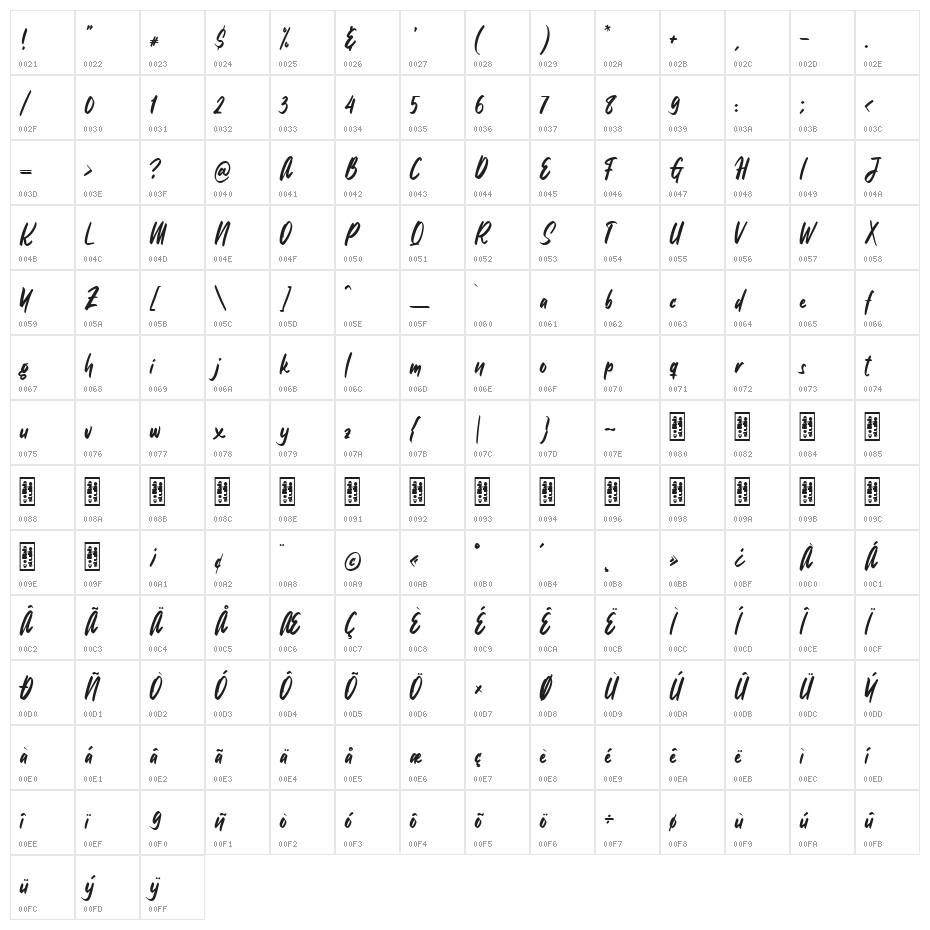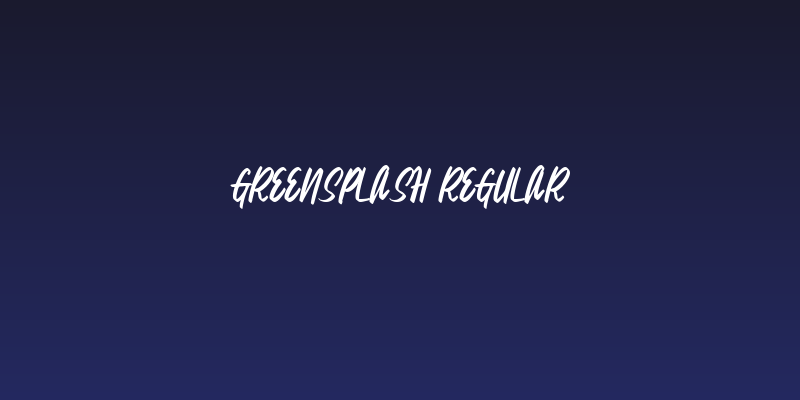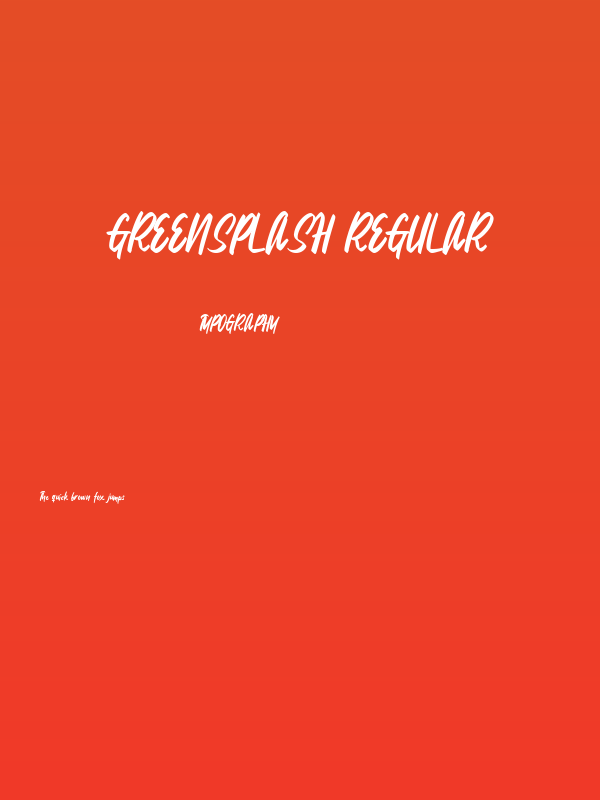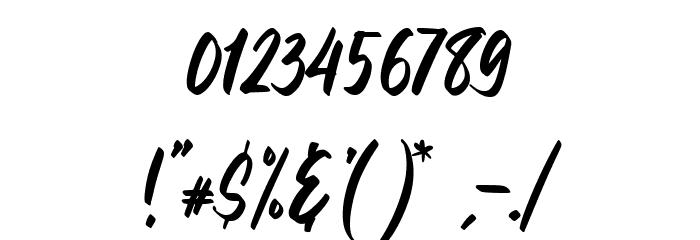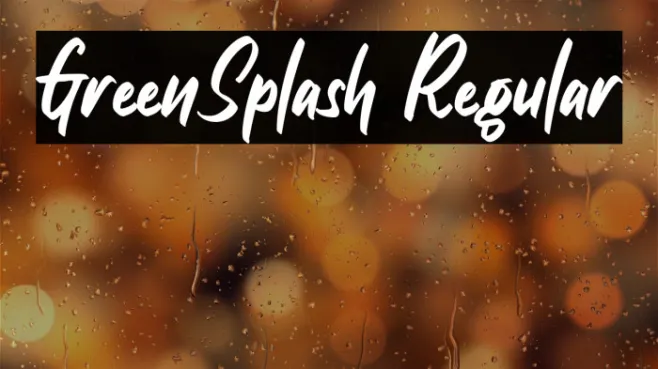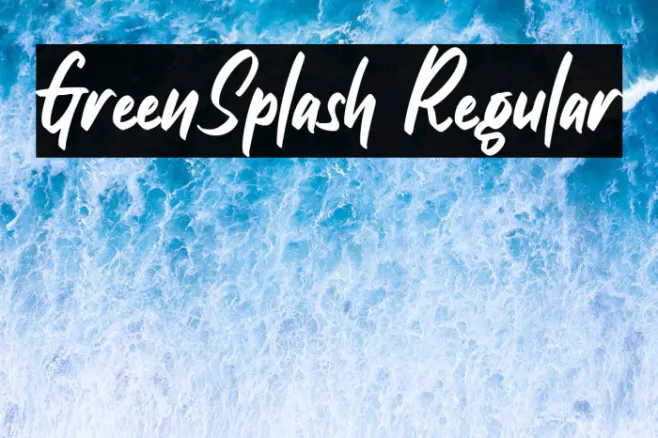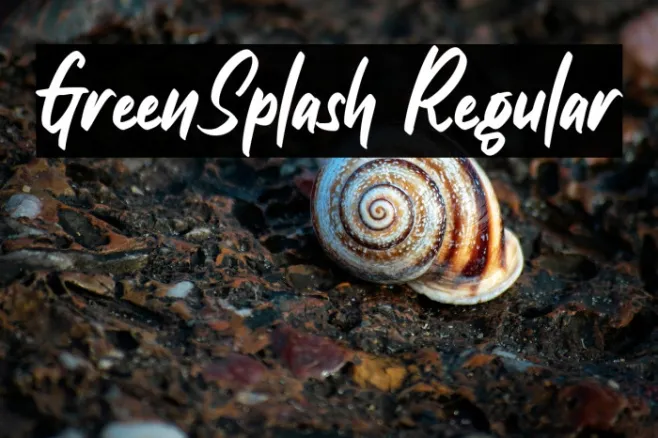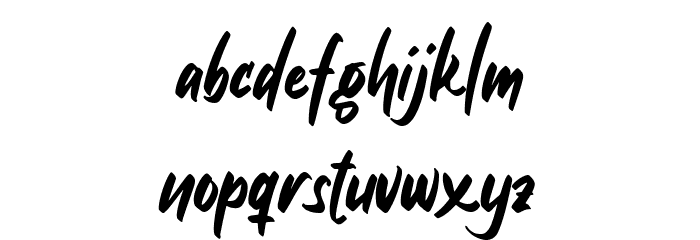
GreenSplash Regular Font
GreenSplash Regular Description
This font exudes a dynamic and energetic vibe with its bold, brush-like strokes. The characters are crafted with a sense of movement, giving them a lively and expressive appearance. The uppercase letters are tall and commanding, while the lowercase letters maintain a consistent flow, enhancing readability. The numerals are clear and distinct, matching the overall style of the font. Special characters are creatively integrated, adding to the font's versatility. This font is perfect for projects that require a touch of creativity and flair.